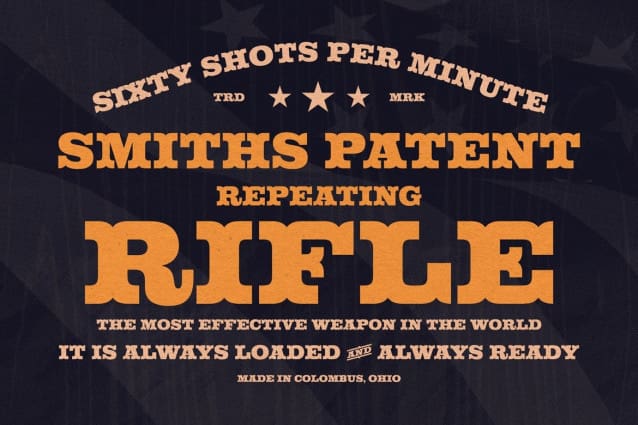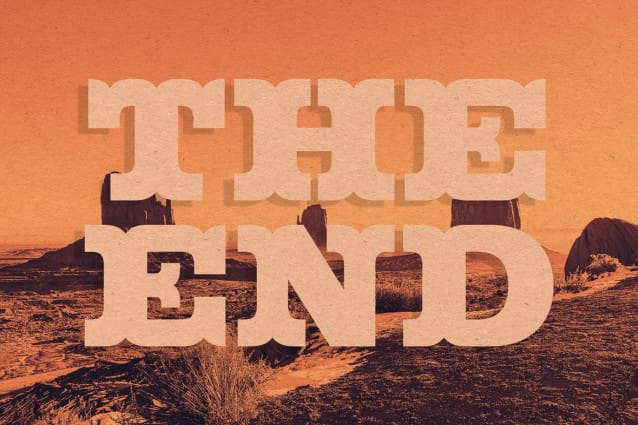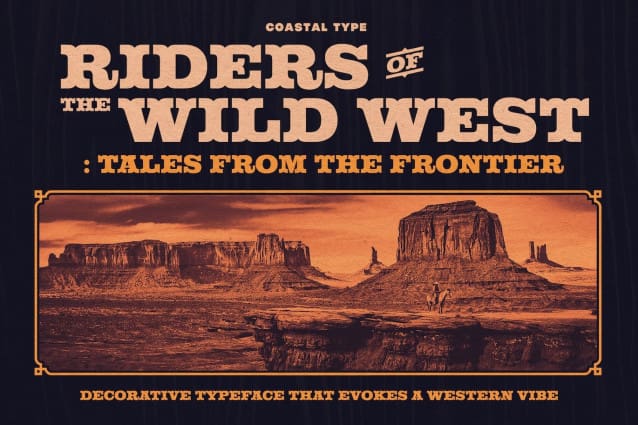
Riders Of The Wild West Font
Riders Of The Wild West Font a decorative typeface that captures the rugged spirit and untamed allure of the Wild West. With its bold and clean letterforms, ‘Riders of the Wild West‘ transports you to a time when cowboys roamed the open plains, and dusty saloons echoed with the clinking of spurs. This typeface evokes the essence of the frontier, complete with catchwords, making it the perfect choice for any design project seeking to channel the adventurous and timeless atmosphere of the Old West.”